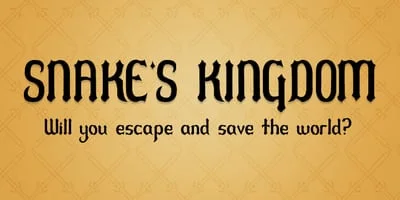
Duel Font
The Duel Font excels in various design applications including competitive gaming interfaces, head-to-head sports branding, confrontational marketing campaigns, versus-style promotional materials, combat sports communications, competitive tournament graphics, rivalry-themed designs, battle-oriented entertainment content, challenge-based event promotions, and adversarial brand positioning that demands combative visual intensity and competitive edge.
What makes the Duel Font exciting is its embodiment of direct confrontation and competitive tension through letterforms that suggest the decisive moments of face-to-face combat and strategic dueling encounters. This typeface captures the essence of honorable competition through carefully crafted characters that convey focus, determination, and the precise timing required for victory in one-on-one challenges. The font's combative personality makes it perfect for brands and events seeking to communicate competitive excellence, strategic thinking, and the thrilling intensity of direct competition through typography that literally faces off against conventional design expectations.
The Duel Font family typically includes contrasting weight pairs designed to create visual tension, featuring aggressive italic styles that enhance the confrontational dynamic and bold weights that amplify competitive intensity. These family options often include alternate characters with enhanced contrast ratios, competitive symbols, and dueling-inspired elements that provide designers with comprehensive tools for creating authentic confrontational typography that captures the excitement of direct competition.
Competitive industry professionals and sports entertainment brands consistently select Duel Font for projects requiring typography that communicates competitive superiority and confrontational excellence. This typeface delivers exceptional performance in gaming marketing, sports branding, and competitive entertainment where establishing dominance and creating exciting rivalry dynamics is essential for audience engagement. The font's dueling character makes it particularly effective for tournament promotions and head-to-head competition formats. Download Duel Font today to access this powerful typeface that transforms competitive communications with its confrontational precision and combative sophistication, creating compelling rivalry experiences that demonstrate competitive spirit and strategic excellence while capturing the thrilling intensity of direct competition.